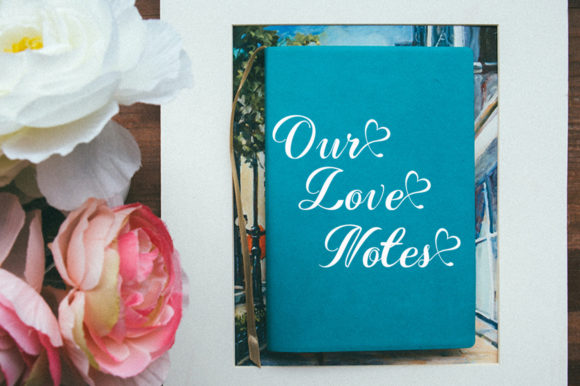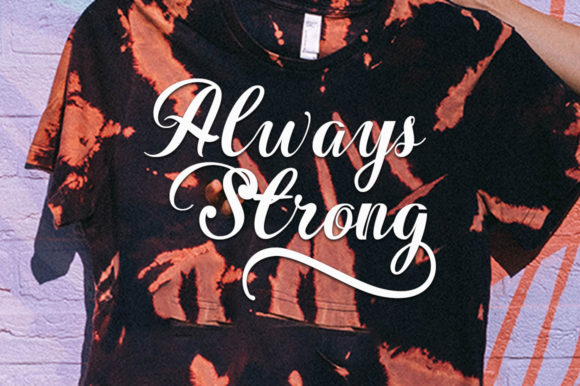
Bosterina Font
db-ku.com - Script & Handwritten -- Bosterina is a romantic and sweet calligraphy typeface with characters that dance along the baseline. This font is PUA encoded which means you can access all of the glyphs and swashes with ease!